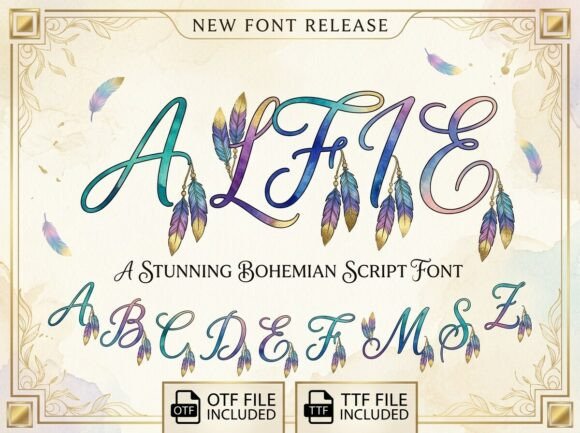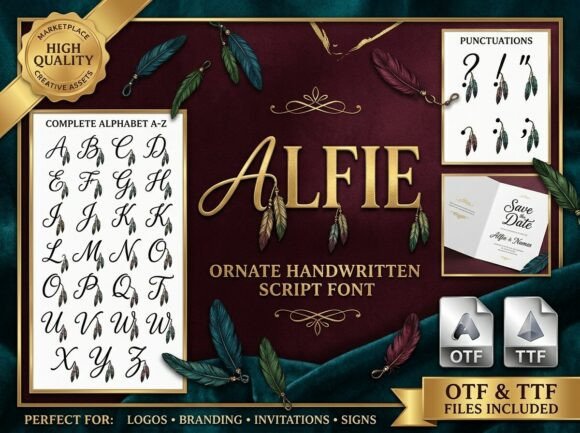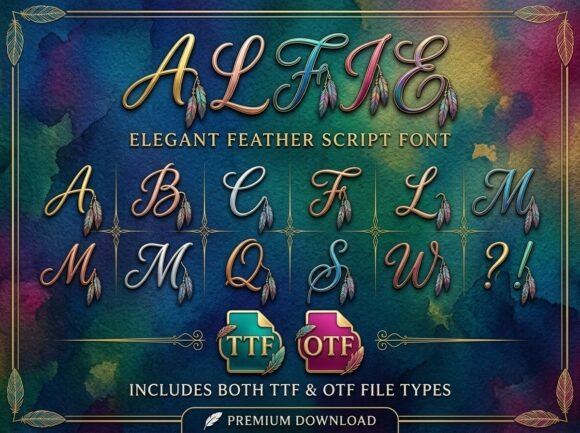
Introducing Alfie Font: Elevate Your Designs with Ethereal Elegance
Are you tired of using the same old fonts in your designs? Do you want to add a touch of sophistication and whimsy to your projects? Look no further than Alfie, a premium script font that embodies the perfect blend of ethereal grace and artisanal beauty. In this article, we’ll dive into the unique features of Alfie and explore how it can elevate your designs to new heights.
The Unique Charm of Alfie Font
Alfie is more than just a font – it’s an experience. Characterized by its sophisticated, flowing calligraphy and high-definition metallic finish, each character is uniquely adorned with delicate, dangling feathers. These illustrative charms feature an iridescent blend of soft purples, teals, and rose golds, creating a look that is both bohemian and luxurious. Whether you’re designing for a high-end brand or a whimsical editorial project, Alfie is the perfect choice.
Perfect for Holistic Branding and Packaging
Alfie is specifically designed for designers and crafters who want to create unique and eye-catching branding and packaging. Its elegant, flowing script and metallic finish make it perfect for holistic branding, high-end dreamcatcher packaging, and boutique spa identities. With Alfie, you can create a cohesive and luxurious look that sets your brand apart from the rest.
Whimsical Editorial Headlines and More
But Alfie’s uses don’t stop there. Its whimsical and elegant design also makes it perfect for editorial headlines, invitations, and other creative projects. Whether you’re designing for a magazine, blog, or social media campaign, Alfie is sure to add a touch of magic to your text. And with its high-definition metallic finish, your designs will look stunning on any device or medium.
Key Features of Alfie Font
- Sophisticated, flowing calligraphy: Alfie’s elegant script is perfect for creating luxurious and eye-catching designs.
- High-definition metallic finish: Add a touch of shine and sophistication to your designs with Alfie’s metallic finish.
- Delicate, dangling feathers: Each character is uniquely adorned with delicate feathers, adding a touch of whimsy and charm to your designs.
- Iridescent color palette: Alfie’s soft purples, teals, and rose golds create a look that is both bohemian and luxurious.
Tips for Using Alfie Font
To get the most out of Alfie, here are a few tips to keep in mind:
- Use it sparingly: Alfie is a statement font, so use it sparingly to add emphasis and elegance to your designs.
- Pair it with neutral fonts: Pair Alfie with neutral fonts to create a balanced and harmonious look.
- Experiment with colors: While Alfie’s metallic finish and iridescent colors are stunning on their own, don’t be afraid to experiment with different colors and combinations to create a unique look.
In conclusion, Alfie is a premium script font that embodies the perfect blend of ethereal grace and artisanal beauty. With its sophisticated, flowing calligraphy, high-definition metallic finish, and delicate, dangling feathers, Alfie is the perfect choice for designers and crafters who want to create unique and eye-catching designs. Whether you’re designing for holistic branding, high-end packaging, or whimsical editorial projects, Alfie is sure to elevate your designs to new heights.